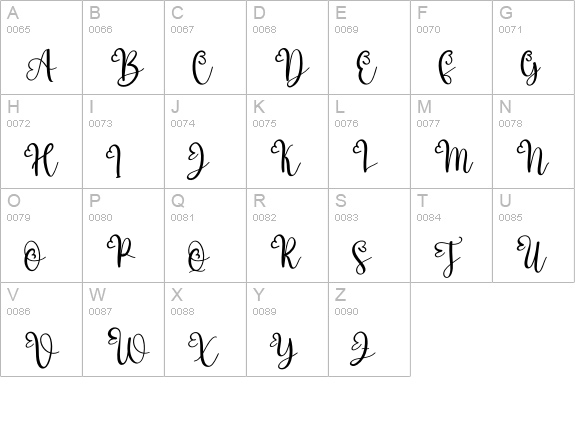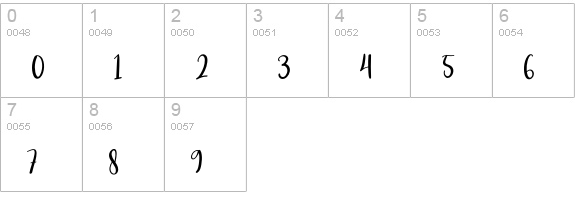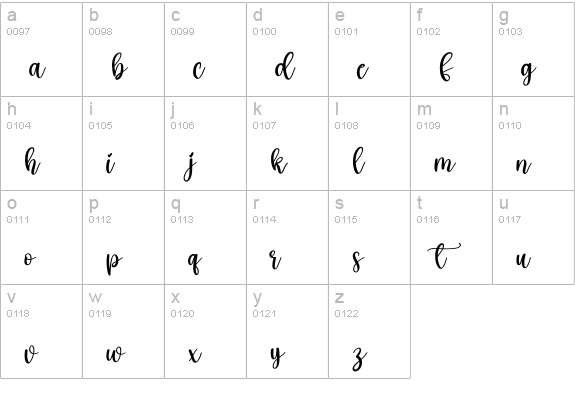
Again Font Details
Again is a free for personal use font in the Script > Handwritten category, designed by scratchones. It has been downloaded 96 times and is available for Windows, Mac and Linux.
Again font is a modern and stylish typeface that exudes elegance and sophistication. With its clean lines and contemporary design, Again font is perfect for a wide range of design projects, from branding to packaging to editorial. This versatile font is sure to make your text stand out and leave a lasting impression on your audience.